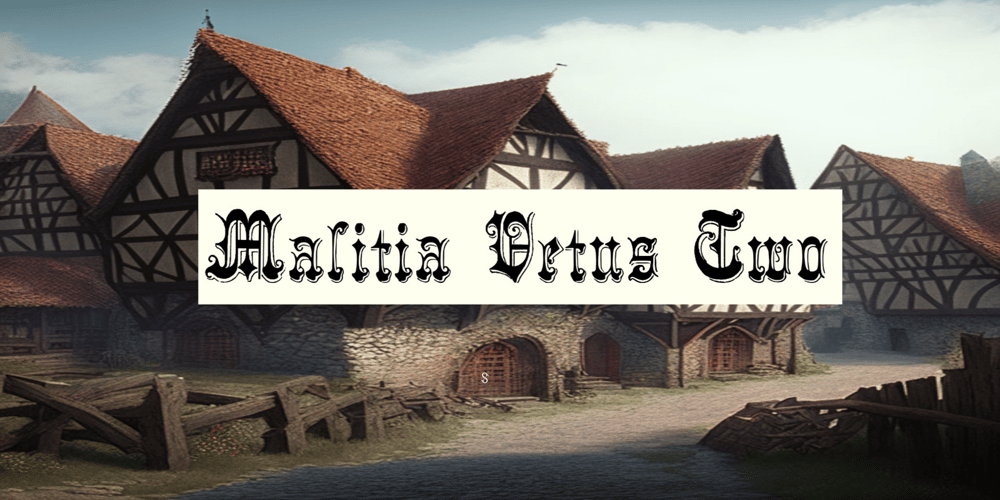
Malitia Vetus Two Font Family was designed by Paulo W and published by Intellecta Design. Malitia Vetus Two contains 1 styles and family package options. MalitiaVetus is a decorative blackletter font with influences of Old English, Lombardic and Tuscan styles. Is perfect to create authentic medieval documents